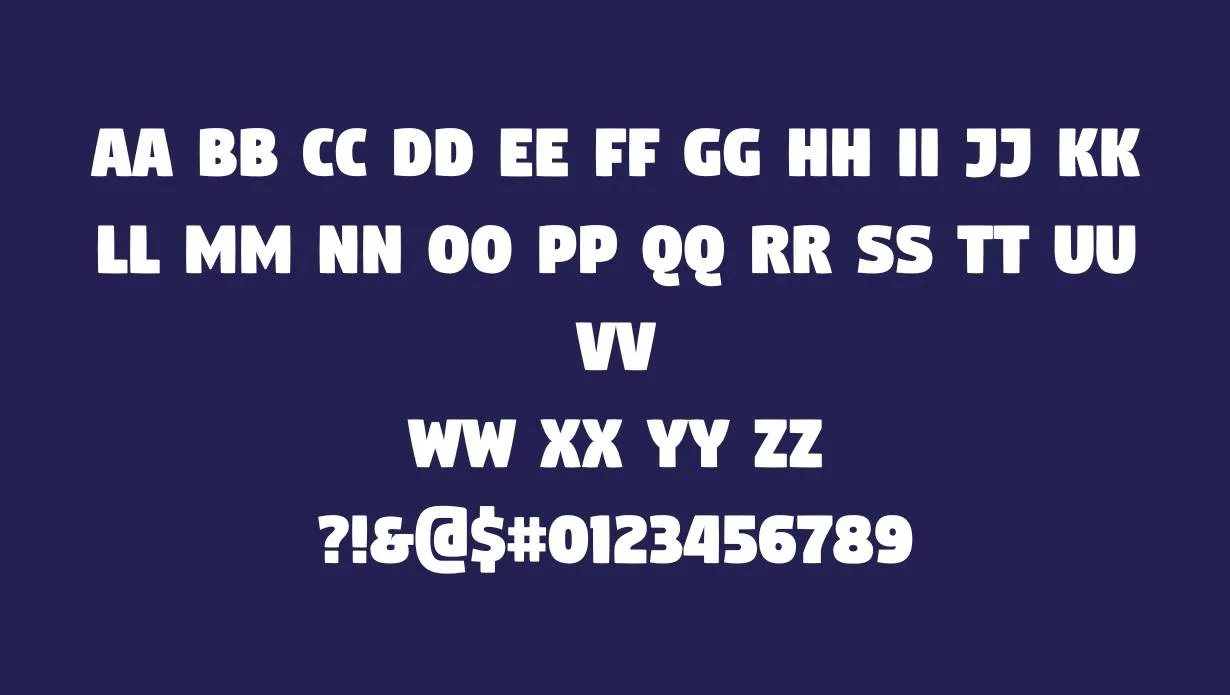
Digitalt Font is a cutting-edge and contemporary typeface created for the digital era. Featuring crisp lines and geometric forms, this font adds a touch of accuracy and creativity to your projects.
The moderate weight and medium width strike a balance between readability and a contemporary aesthetic. The technical details highlight its digital-friendly design, making it a perfect choice for projects that embrace a cutting-edge, tech-savvy vibe.
| Name | Digitalt Font |
| Designer | Gluk |